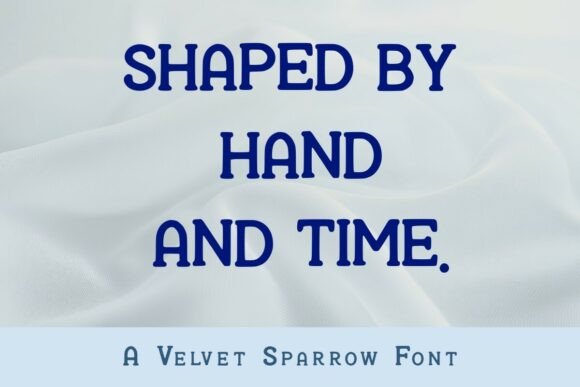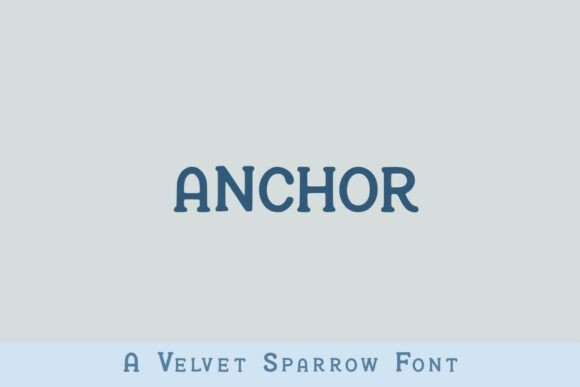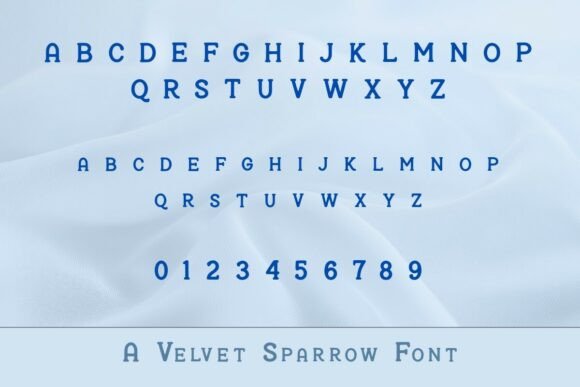
Introduction to Heritage Block Font
Heritage Block is a casual display font that blends modern simplicity with a playful, approachable vibe.
Featuring clean shapes, soft edges, and well-balanced letterforms, it captures the charm of relaxed design while maintaining clarity and style Ideal for posters, branding, packaging, and social media graphics, it adds a fresh and friendly touch to any project.